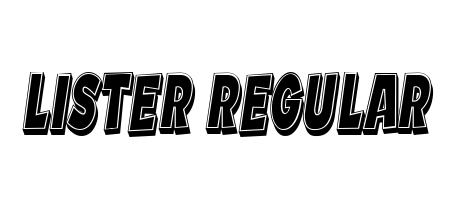
Lister
Lister Regular is a bold, sans-serif font with a strong, confident feel. Its thick strokes and slightly slanted style give it a dynamic energy, hinting at speed and impact. The letterforms are clearly defined, ensuring excellent readability even at smaller sizes. It’s a font that commands attention without being aggressive.
Vladimir Nikolic